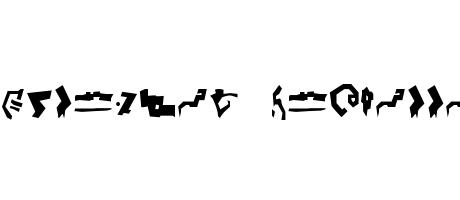
Destronic Grafitti
Destronic Grafitti: A bold, chaotic script, its glyphs resemble jagged, angular graffiti tags. Sharp edges and uneven lines create a raw, energetic feel. The letters interlock and overlap, suggesting speed and spontaneity, like a hurried message scrawled on a wall. It's unapologetically rough, yet strangely rhythmic.